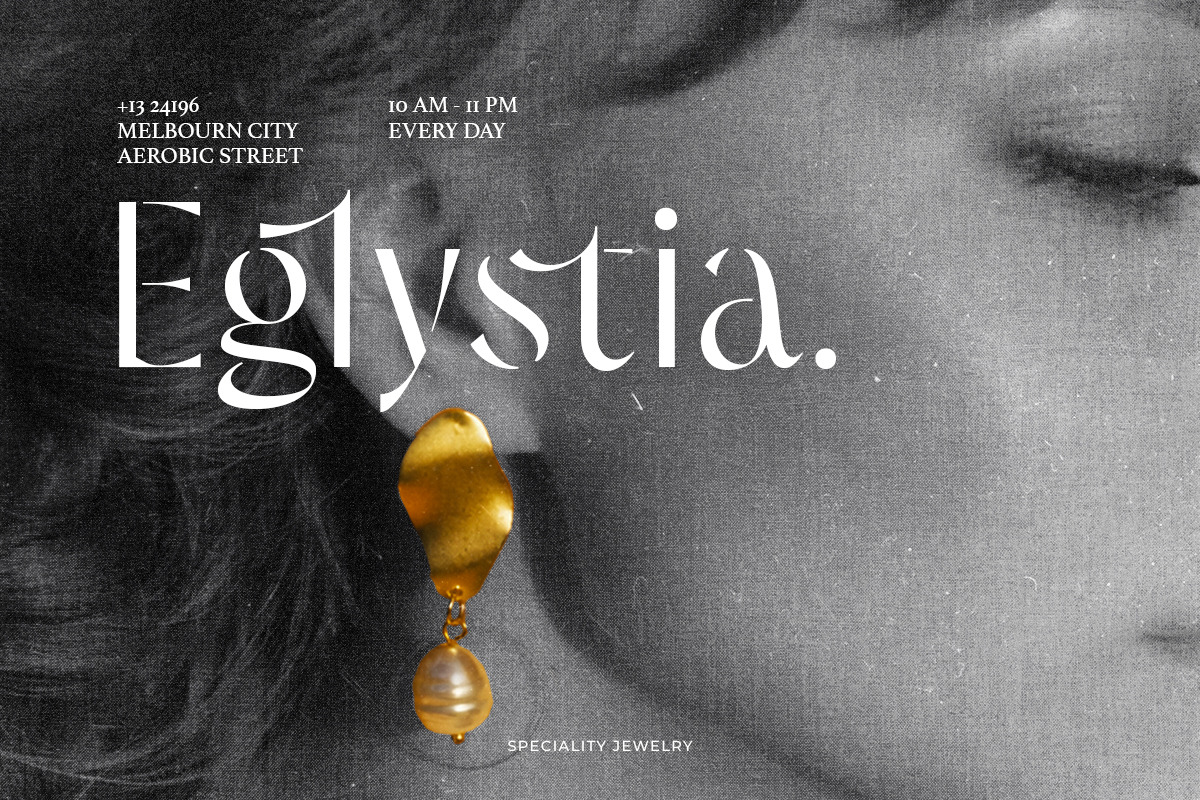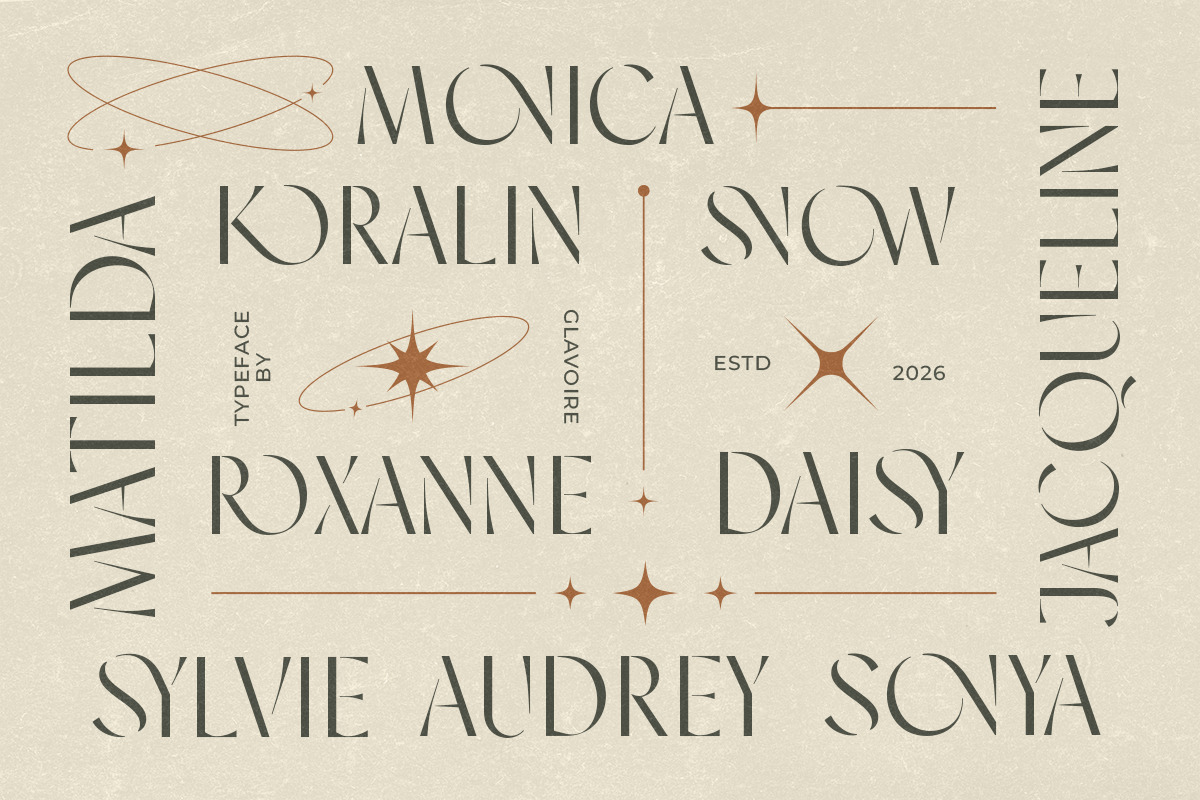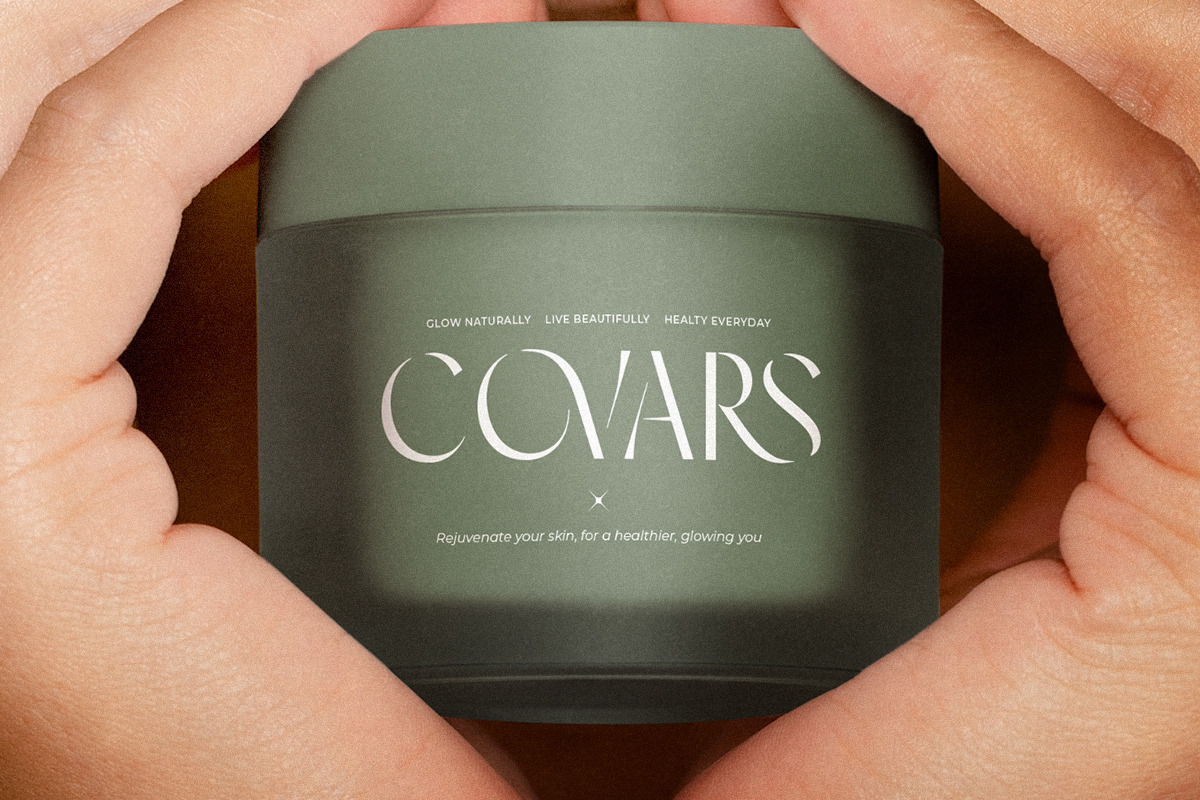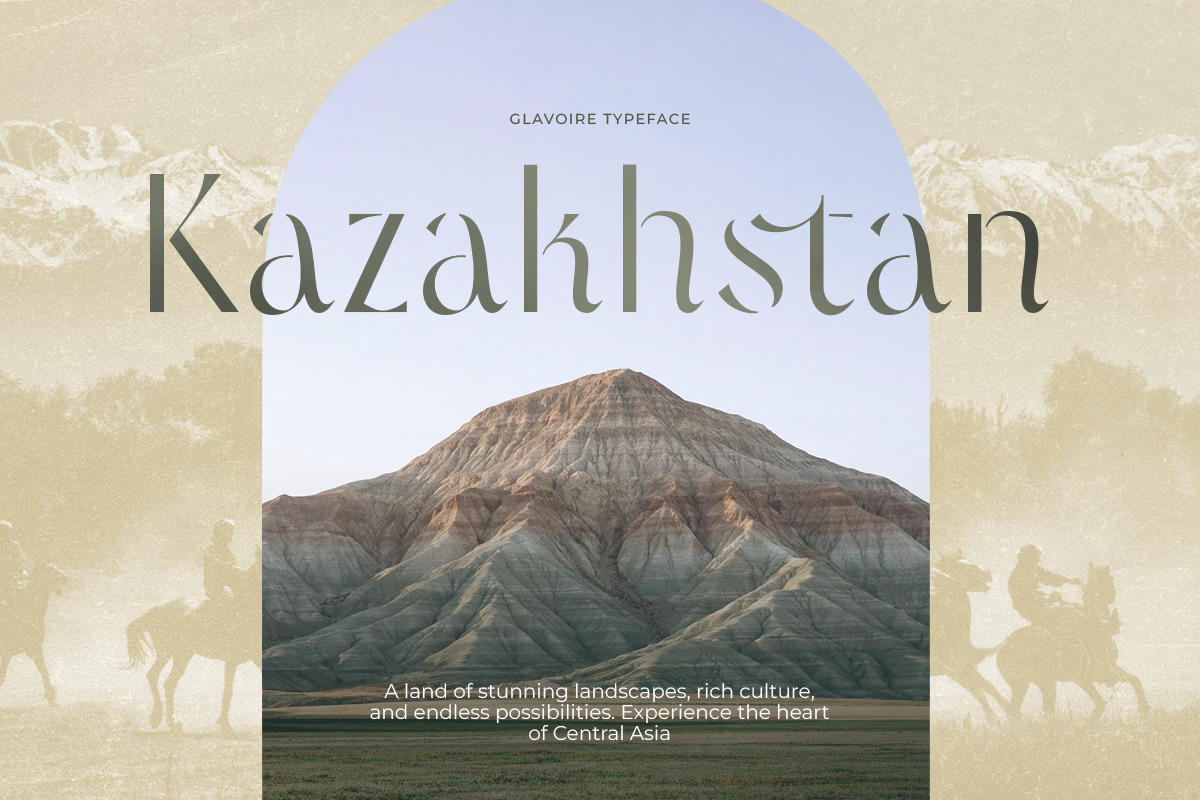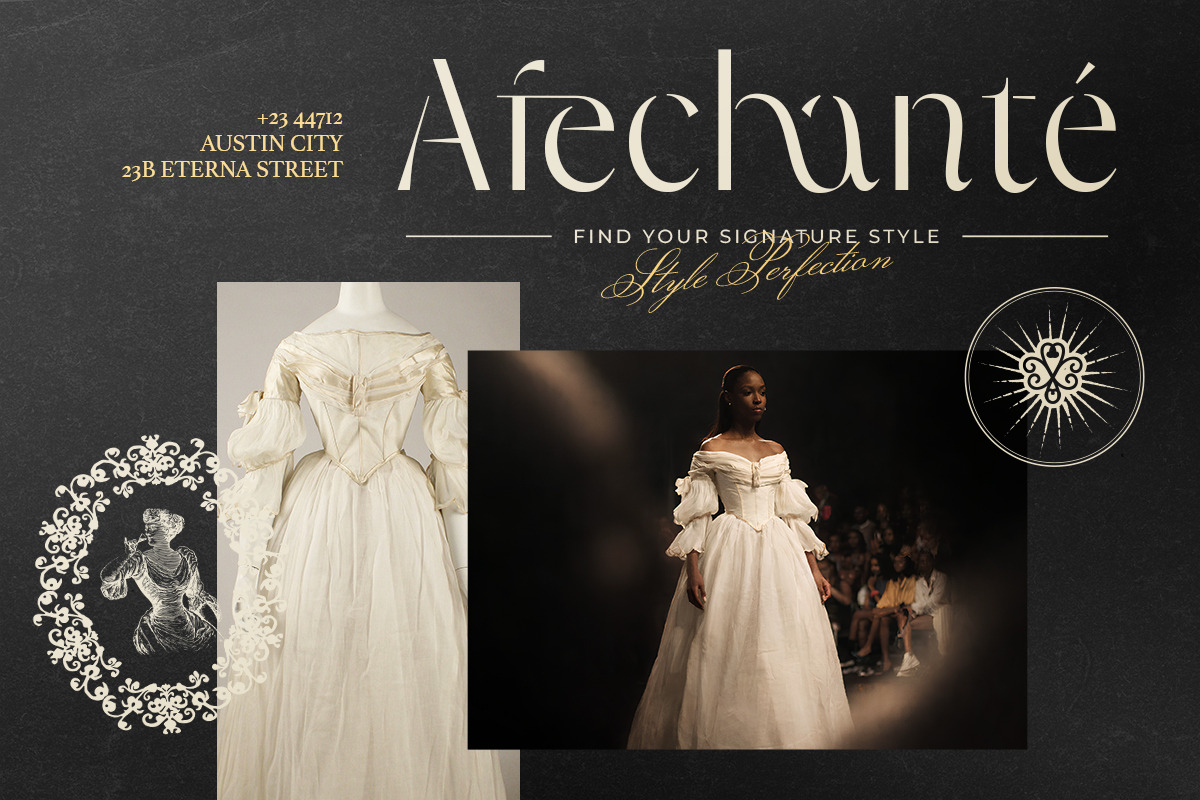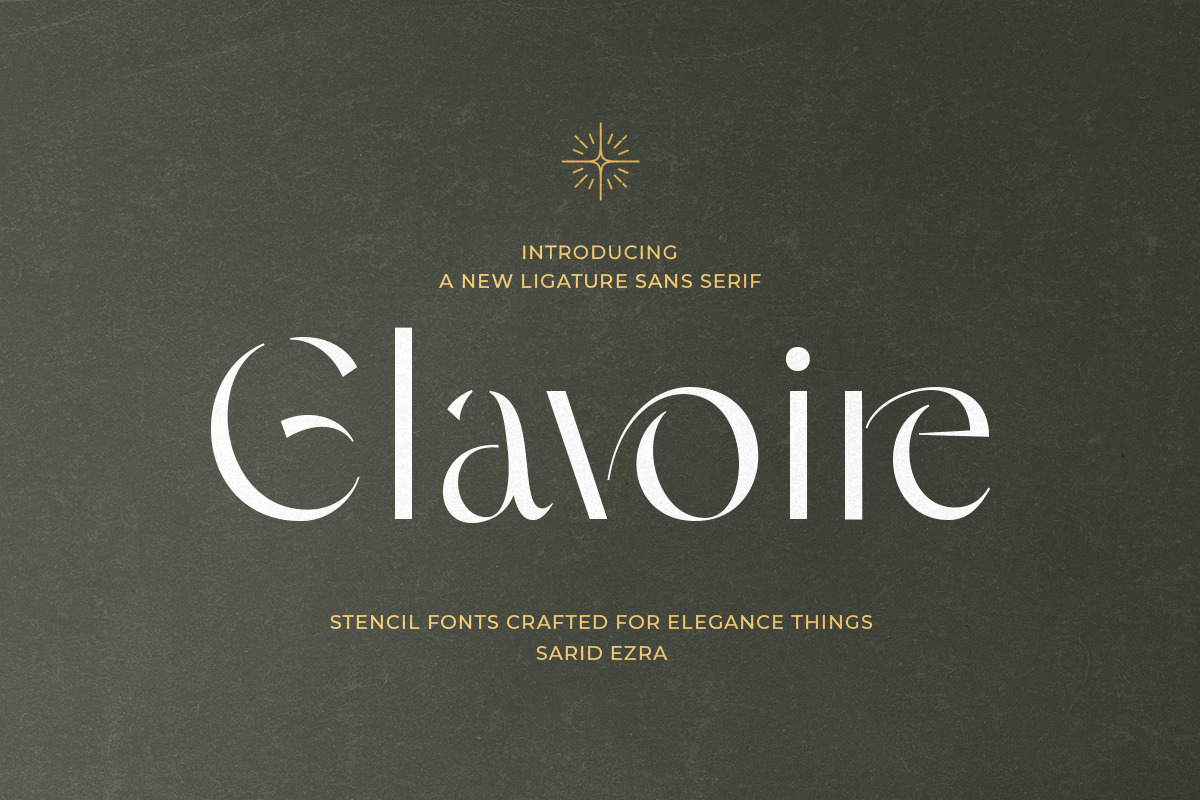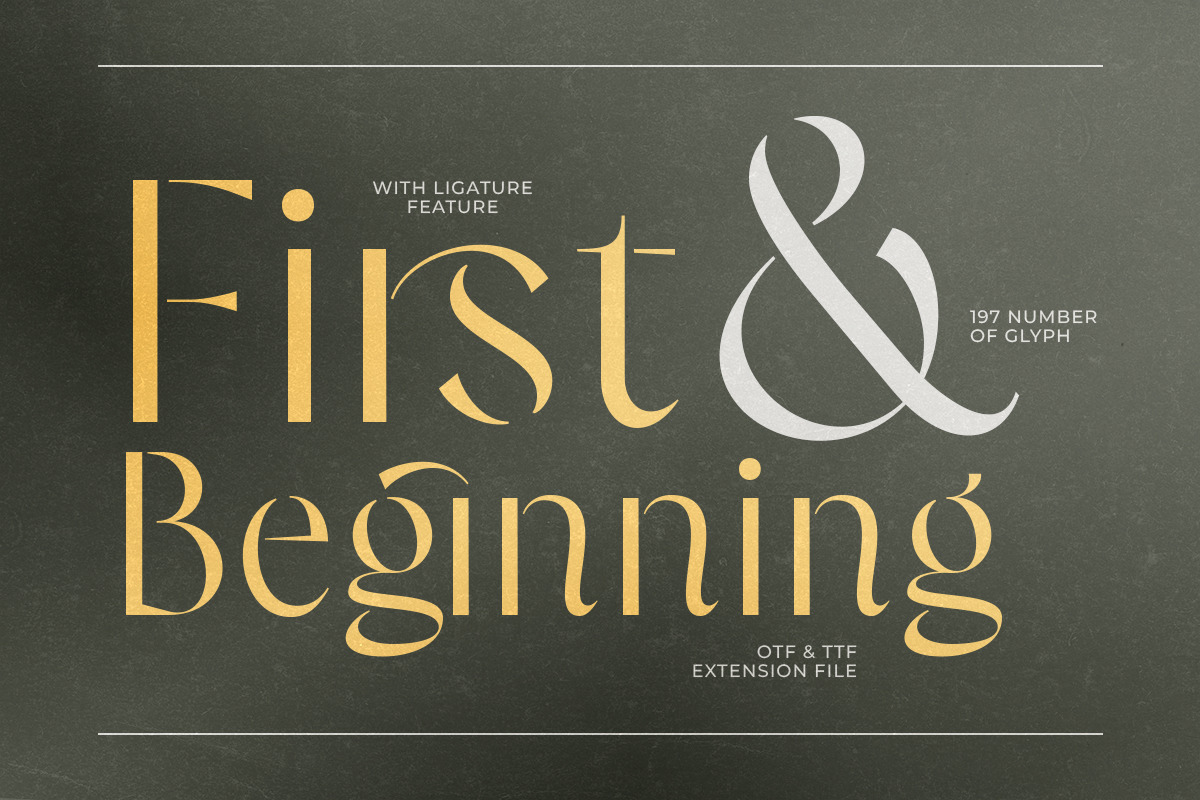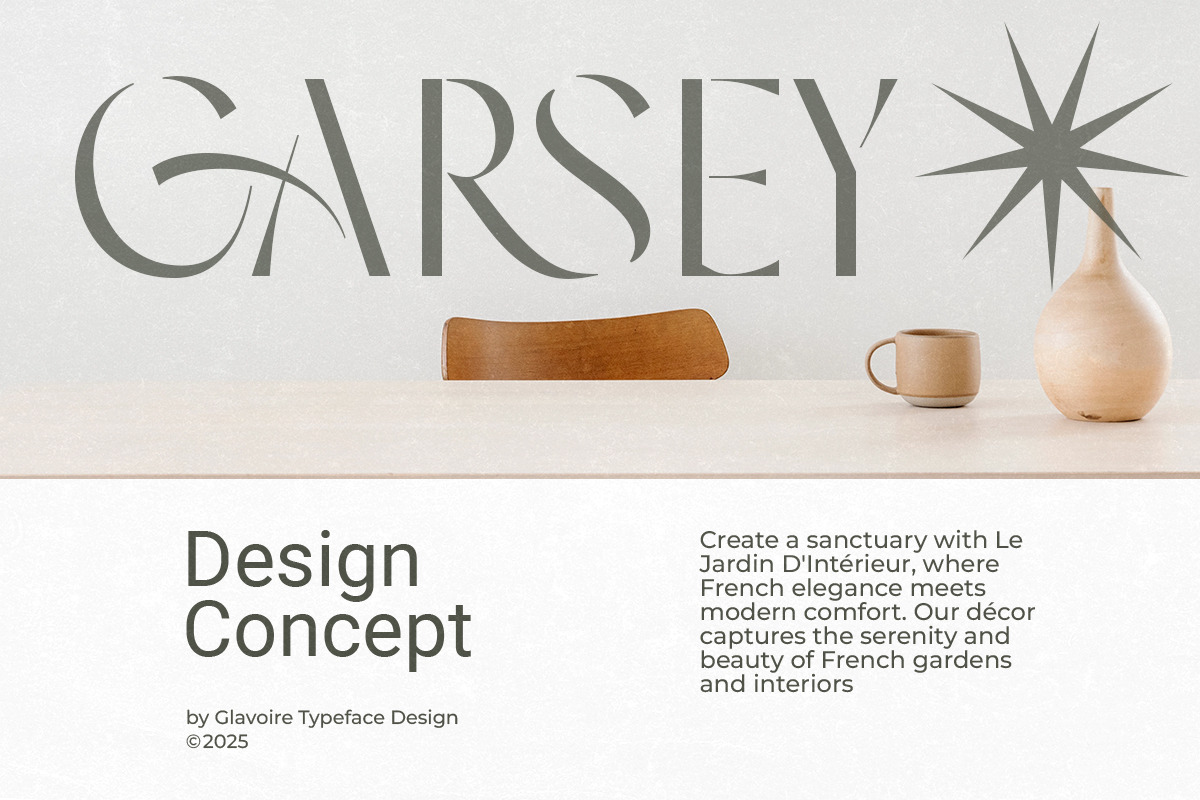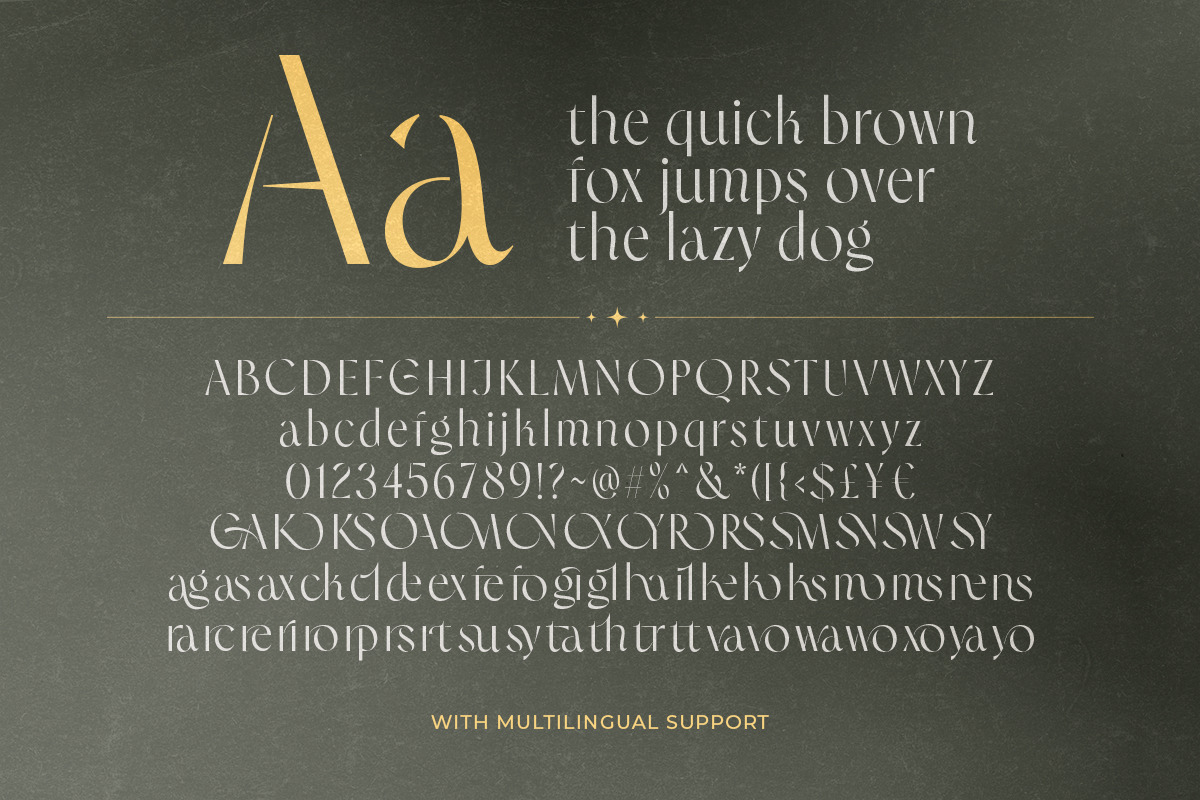
Glavoire - Stencil Ligature Sans
Glavoire is an elegant stencil sans with stylish ligatures. Carefully crafted each characters, the shape of this font can give you an instant luxury looks to your project. You can use this font for any purpose such as logotype, branding or even wedding invitations. This font also support multi language.